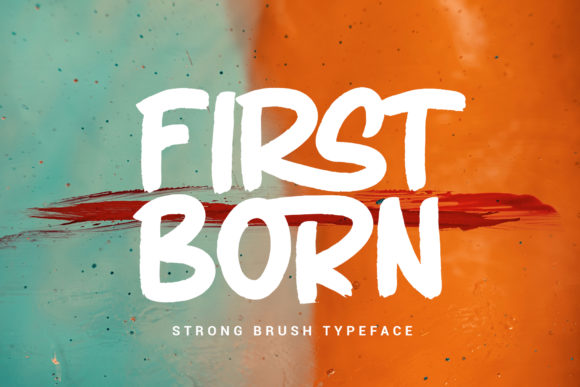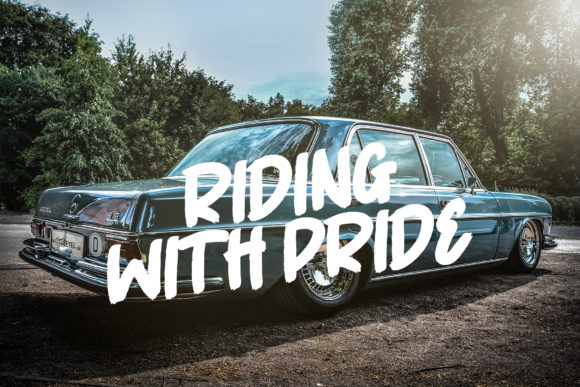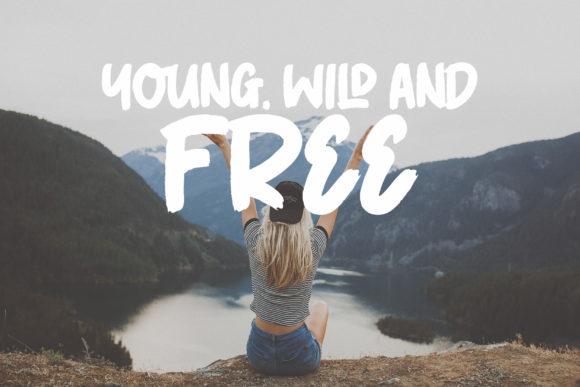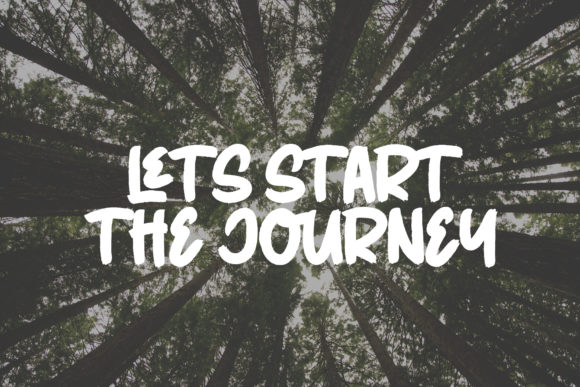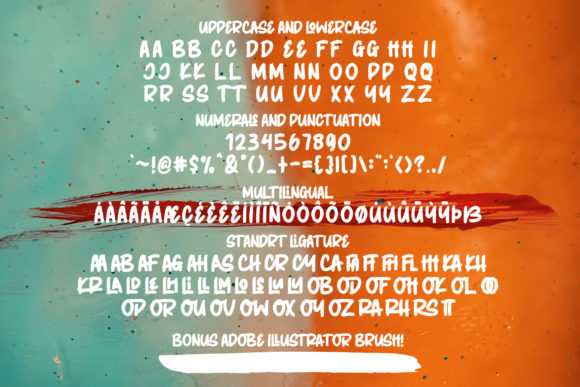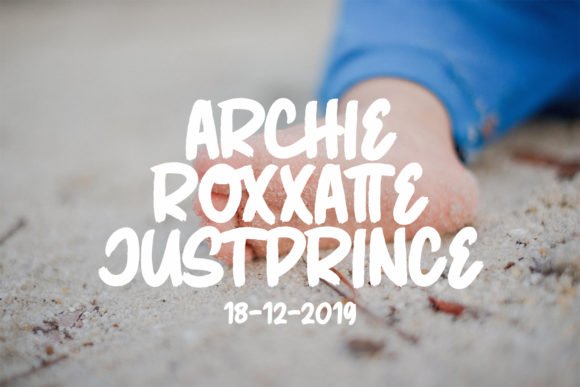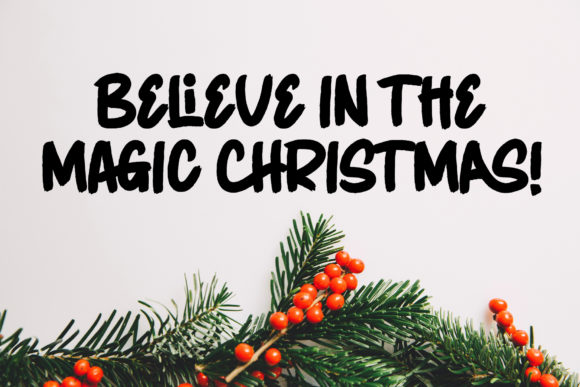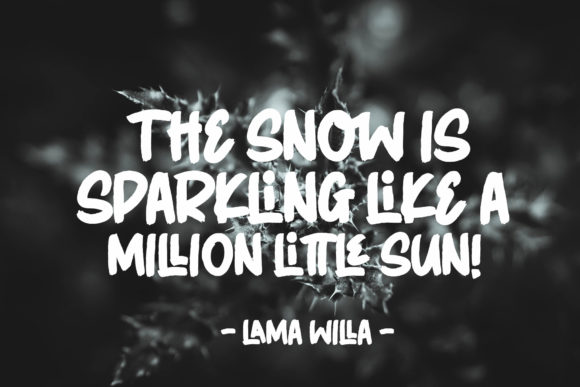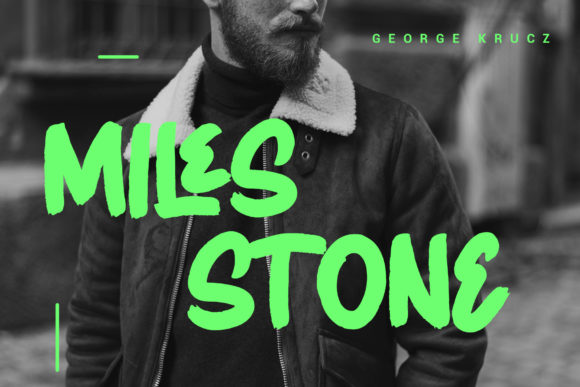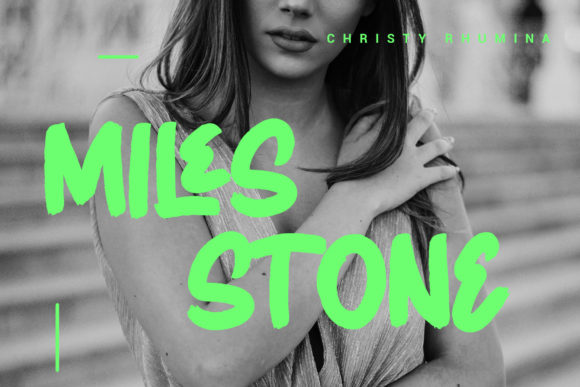
HomeScript FontsFirstborn Font Script Fonts Firstborn Font FacebookXPinterestWhatsApp Firstborn Font Poster 2 Firstborn Font Poster 3 Firstborn Font Poster 4 Firstborn Font Poster 5 Firstborn Font Poster 6 Firstborn Font Poster 7 Firstborn Font Poster 8 Firstborn Font Poster 9 Firstborn Font Poster 10 Firstborn Font Poster 11 Firstborn Font Poster 12 Firstborn Font Poster 13 About Firstborn Font Firstborn is a gorgeous and strong script that will turn any design idea into a true standout! DOWNLOAD ON CREATIVE FABRICAThis font is sold and delivered by Creative Fabrica. Font Canyon may earn a commission if you buy through this link. People also explored Shake Font Replay Time Font Lovely Vanilla Font Attachment Signature Font Guester Font Mastura LoveSick Font Bethany Font Wildom Font 311 0 TagsFirstborn Font Previous articleJanetta Silloam FontNext articleAngelina Font LEAVE A REPLY Cancel reply Comment: Please enter your comment! Name:* Please enter your name here Email:* You have entered an incorrect email address! Please enter your email address here Website: Save my name, email, and website in this browser for the next time I comment. Personal Use Free Soria Personal Use Free Read more about this font Maxwell Personal Use Free Read more about this font Welliana Personal Use Free Read more about this font Adeline Personal Use Free Read more about this font BLOG Transform Your Website: Elevate Your Typography with 7 Best Web Font Generators Are you ready to transform your website's typography from ordinary to extraordinary? Great! Today, we're diving into the world of web font generators, which... Elegant Wedding Invitation Fonts – Handwritten & Script Fonts Best Fonts for YouTube Videos: Make Your Thumbnails Stand Out Top 7 Google Fonts Alternatives for Faster and Privacy-Friendly Web Design (2025)